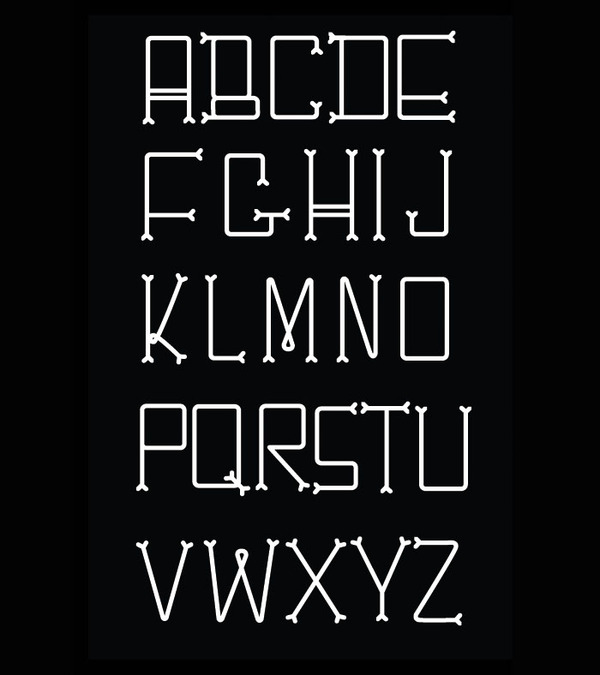
Font Frenzy: Che’s Bones
As Doreen pointed out the other week, greeting card designers working the recommended 3-6 months in advance of a holiday should be working on Halloween cards. In the spirit of the season, here’s a FREE for commercial use font that’s deliciously spooky – Che’s Bones. According to the font designer, her dog inspired her to create this cute font. The bones are great for Halloween but still quite legible and would mix nicely with another plain serif or sans serif font. See an example below and have fun!